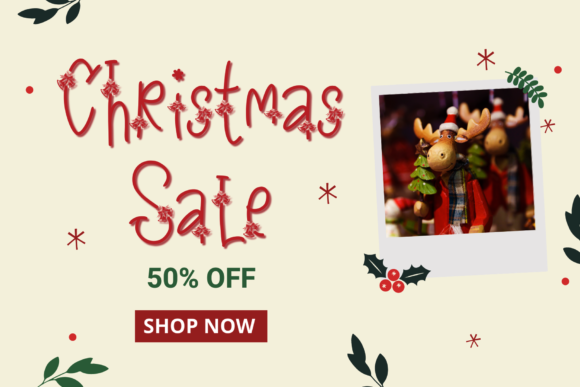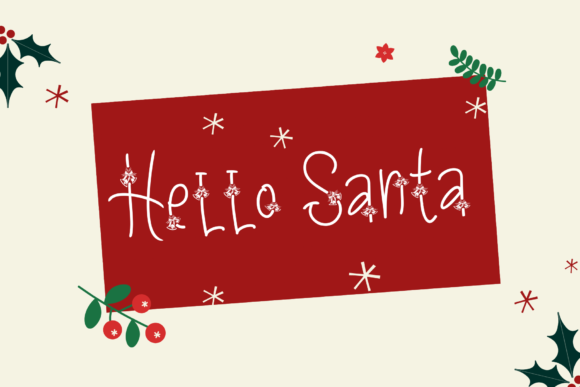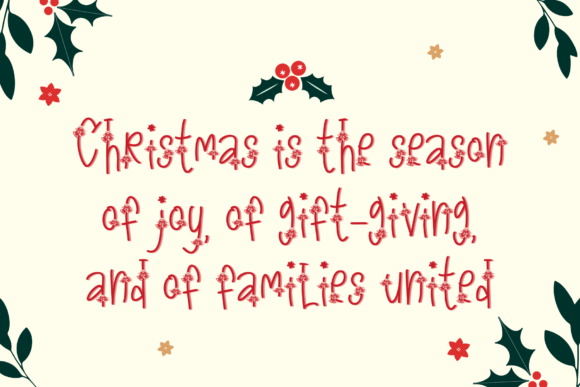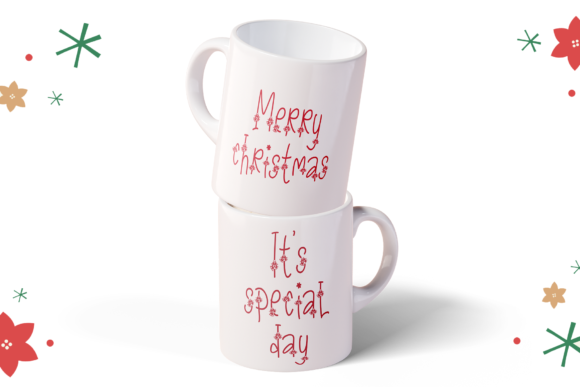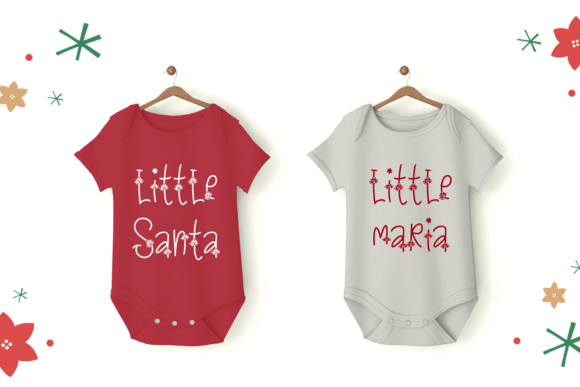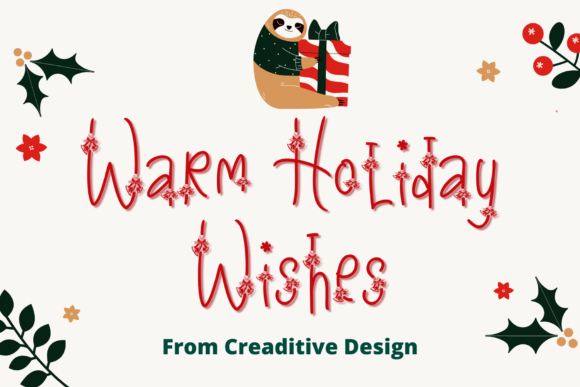
Introducing Christmas Joyful Font: The Ultimate Holiday Decorative Font
Are you looking for a font that captures the essence of the holiday season? Do you want to add a touch of festive fun to your designs, crafts, or marketing materials? Look no further than Christmas Joyful Font, a cool and fun decorative font that’s sure to become a staple in your font library.
What Makes Christmas Joyful Font So Special?
Christmas Joyful Font is a unique and versatile font that’s perfect for any holiday-themed project. Its playful and cheerful design makes it an excellent choice for a wide range of applications, from Christmas cards and invitations to social media graphics, blog posts, and even product packaging.
No matter the topic, Christmas Joyful Font has the potential to elevate any creation with its infectious holiday spirit. Whether you’re a designer, crafter, or DIY enthusiast, this font is sure to inspire your creativity and help you create stunning holiday-themed projects.
Key Features of Christmas Joyful Font
- Unique and Playful Design: Christmas Joyful Font features a one-of-a-kind design that’s both fun and festive. Its curly lines, swirls, and shapes evoke the feeling of holiday cheer and excitement.
- Highly Versatile: This font is perfect for a wide range of applications, including digital and print projects, social media graphics, blog posts, and more.
- Scalable: This font is highly scalable, ensuring that it looks great in any size or resolution.
Use Cases for Christmas Joyful Font
Christmas Joyful Font is perfect for a variety of holiday-themed projects, including:
- Christmas Cards and Invitations: Add a touch of festive fun to your holiday cards and invitations with this cheerful font.
- Social Media Graphics: Create eye-catching social media graphics, including Facebook posts, Twitter headers, and Instagram stories, that showcase your holiday spirit.
- Blog Posts and Articles: Add some holiday cheer to your blog posts and articles with Christmas Joyful Font.
- Product Packaging: Use this font to create festive product packaging that stands out on store shelves.
- Crafts and DIY Projects: Incorporate Christmas Joyful Font into your holiday crafts and DIY projects, such as handmade cards, gift tags, and decorations.
Tips for Using Christmas Joyful Font
Here are some tips for getting the most out of Christmas Joyful Font:
- Experiment with Colors: Try pairing Christmas Joyful Font with different colors to create unique and eye-catching combinations.
- Mix and Match Fonts: Combine Christmas Joyful Font with other fonts to create visually interesting and dynamic designs.
- Use it in Combination with Images: Pair Christmas Joyful Font with holiday-themed images, such as snowflakes, holly, or Santa hats, to create stunning designs.
Christmas Joyful Font is a fun and festive decorative font that’s perfect for adding a touch of holiday cheer to your designs, crafts, and marketing materials. Its unique and playful design makes it an excellent choice for a wide range of applications, from Christmas cards and invitations to social media graphics and product packaging. With its versatility, ease of use, and scalability, Christmas Joyful Font is sure to become a staple in your font library. So why wait? Download Christmas Joyful Font today and start creating stunning holiday-themed projects!